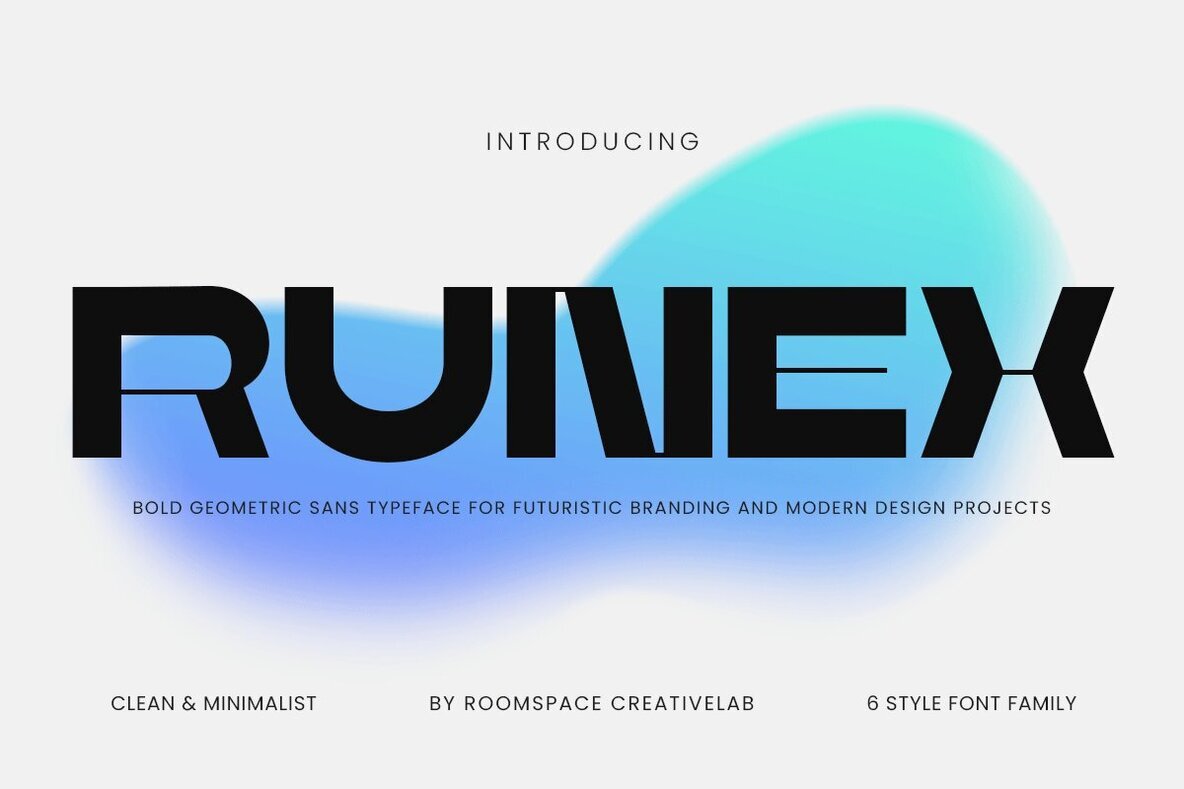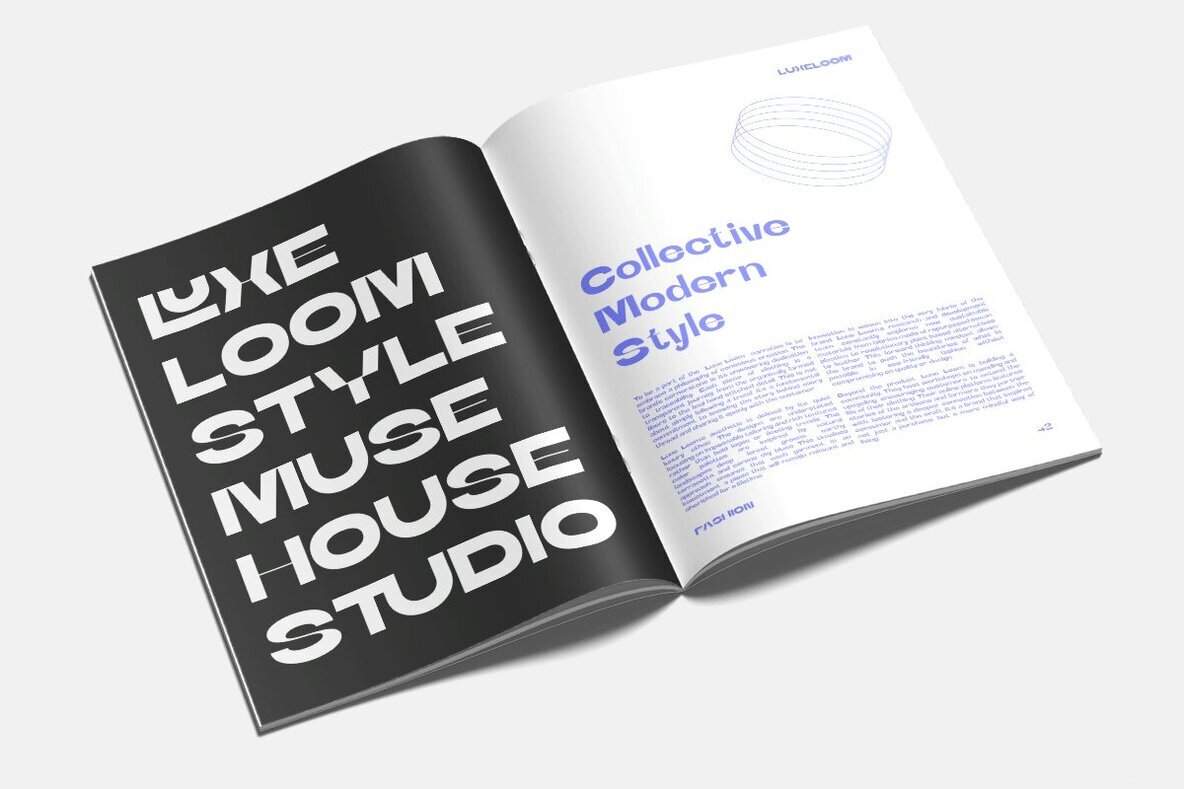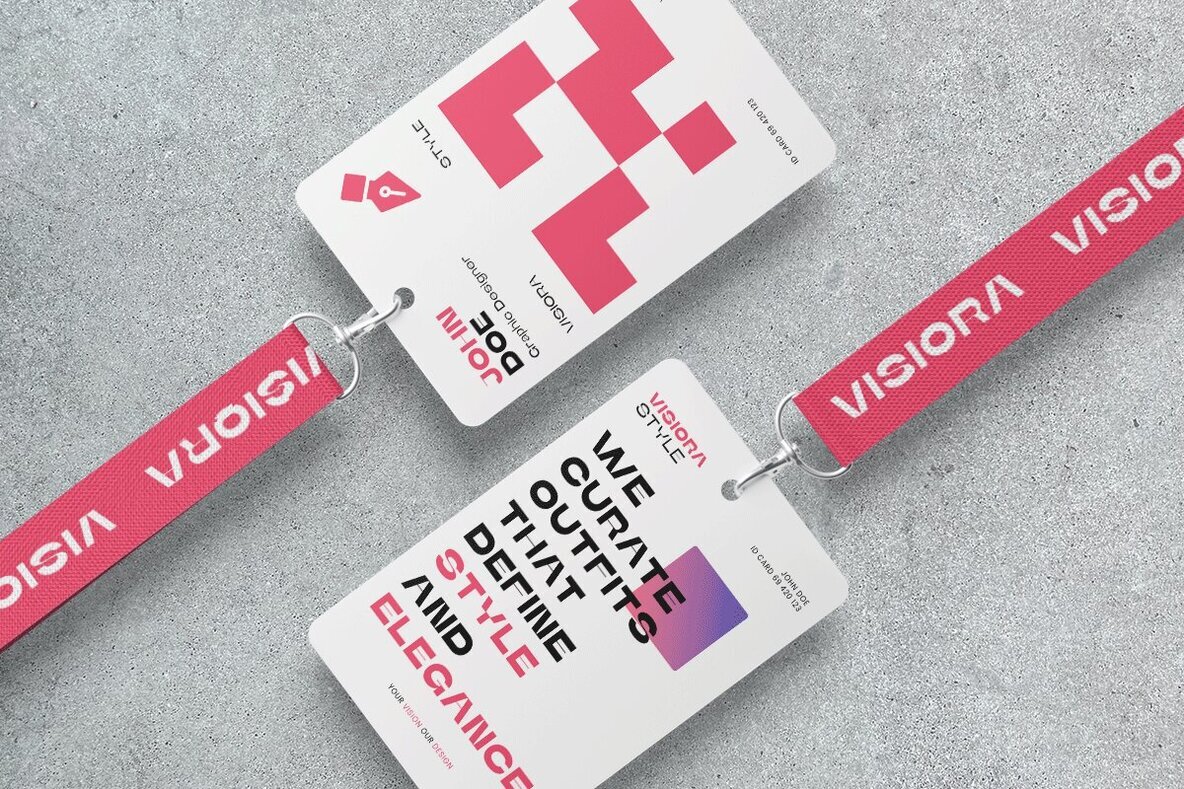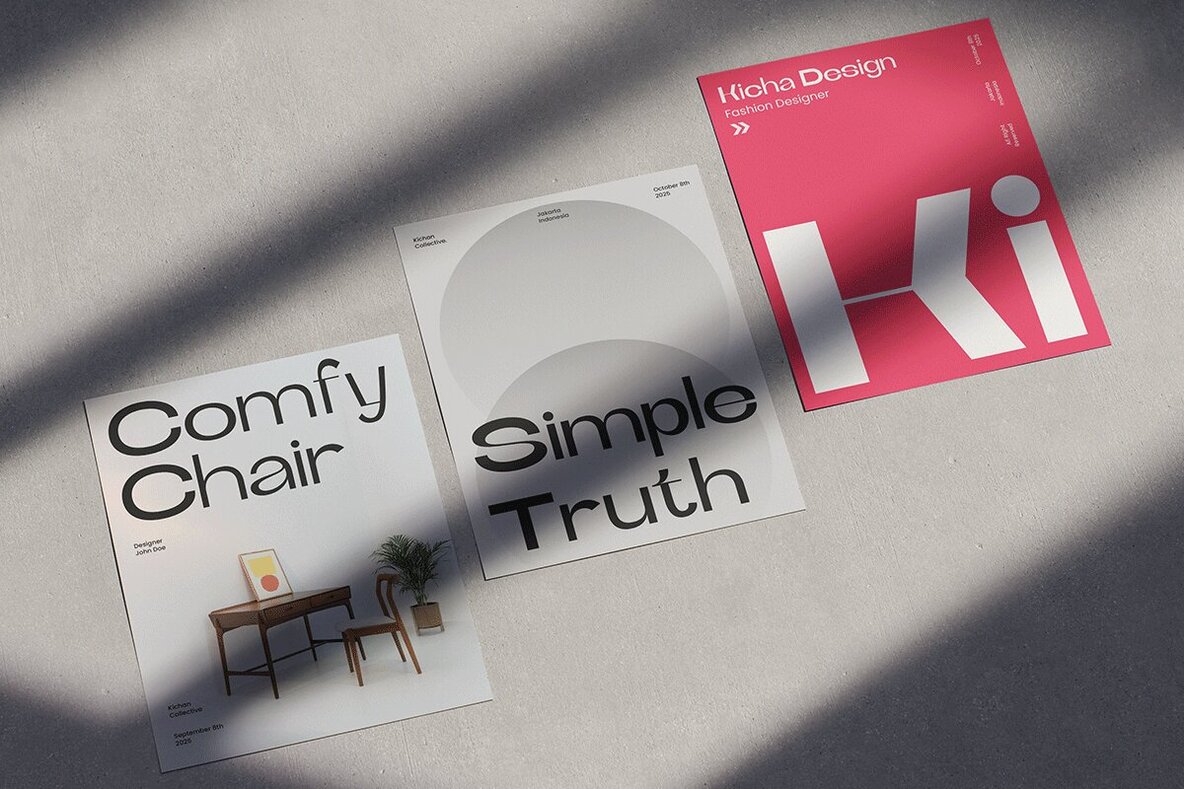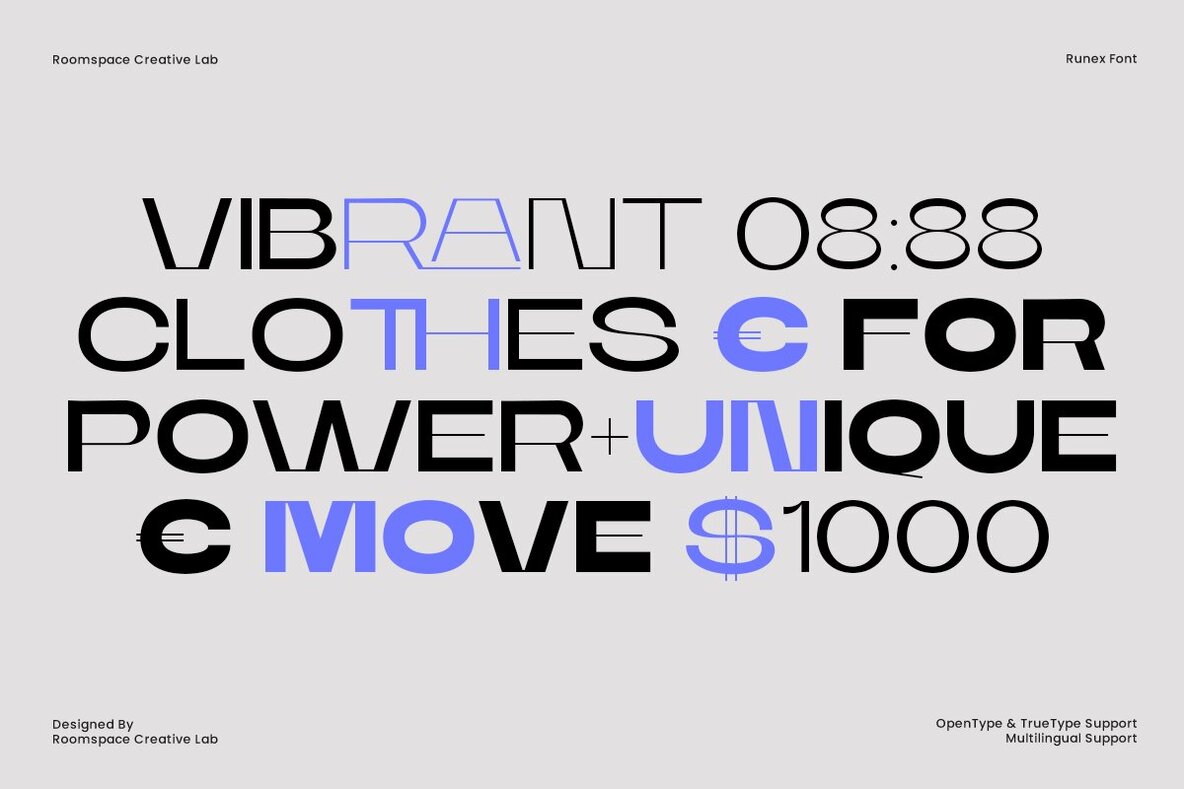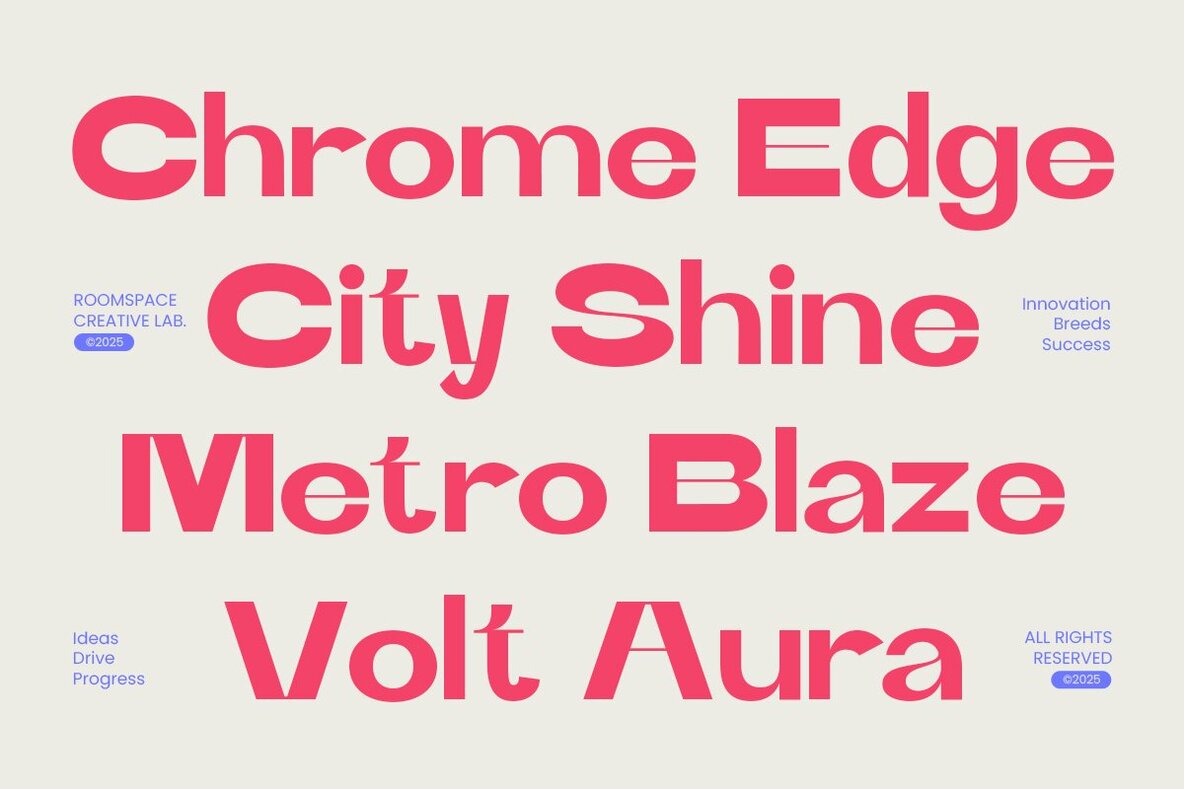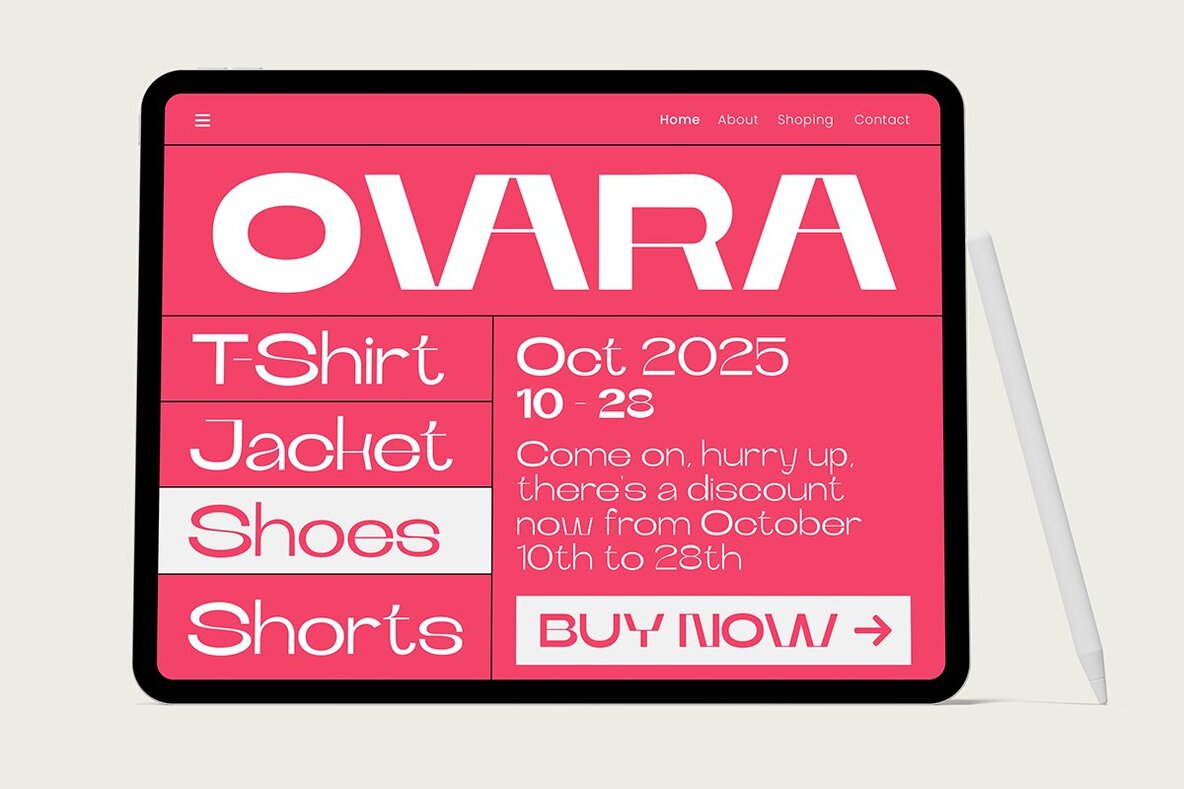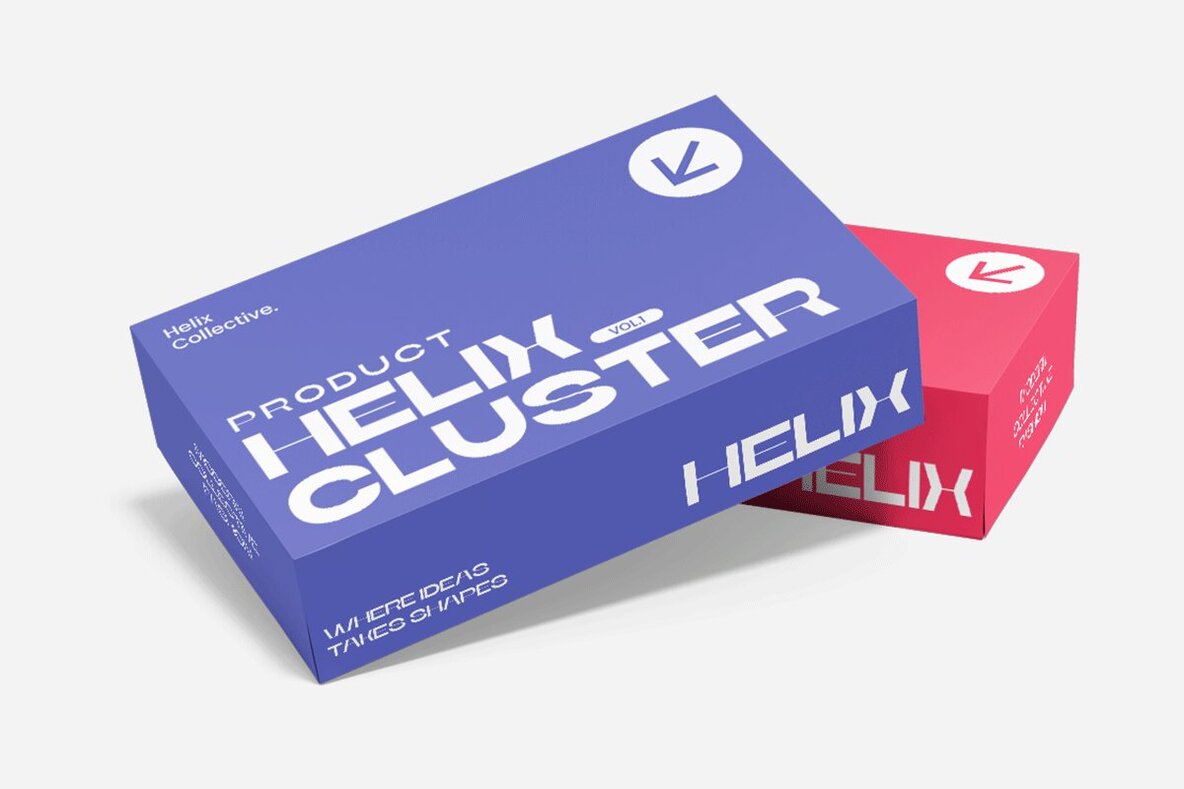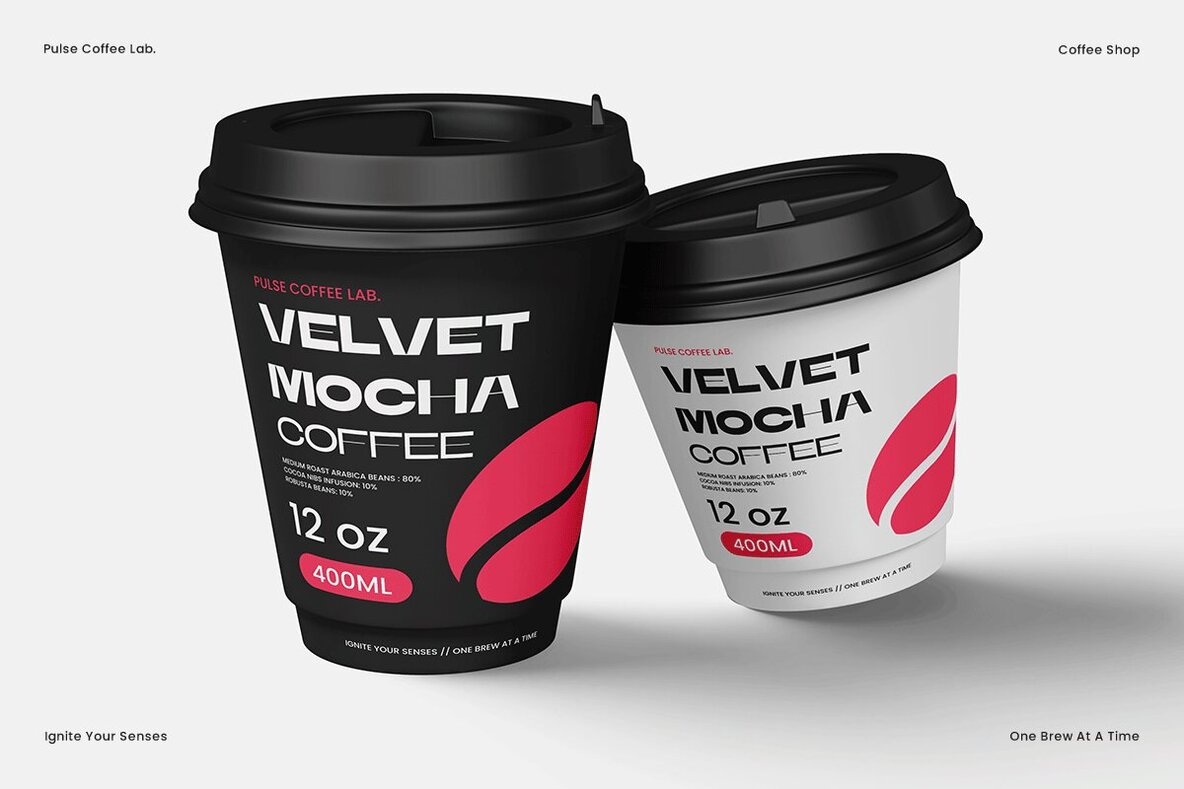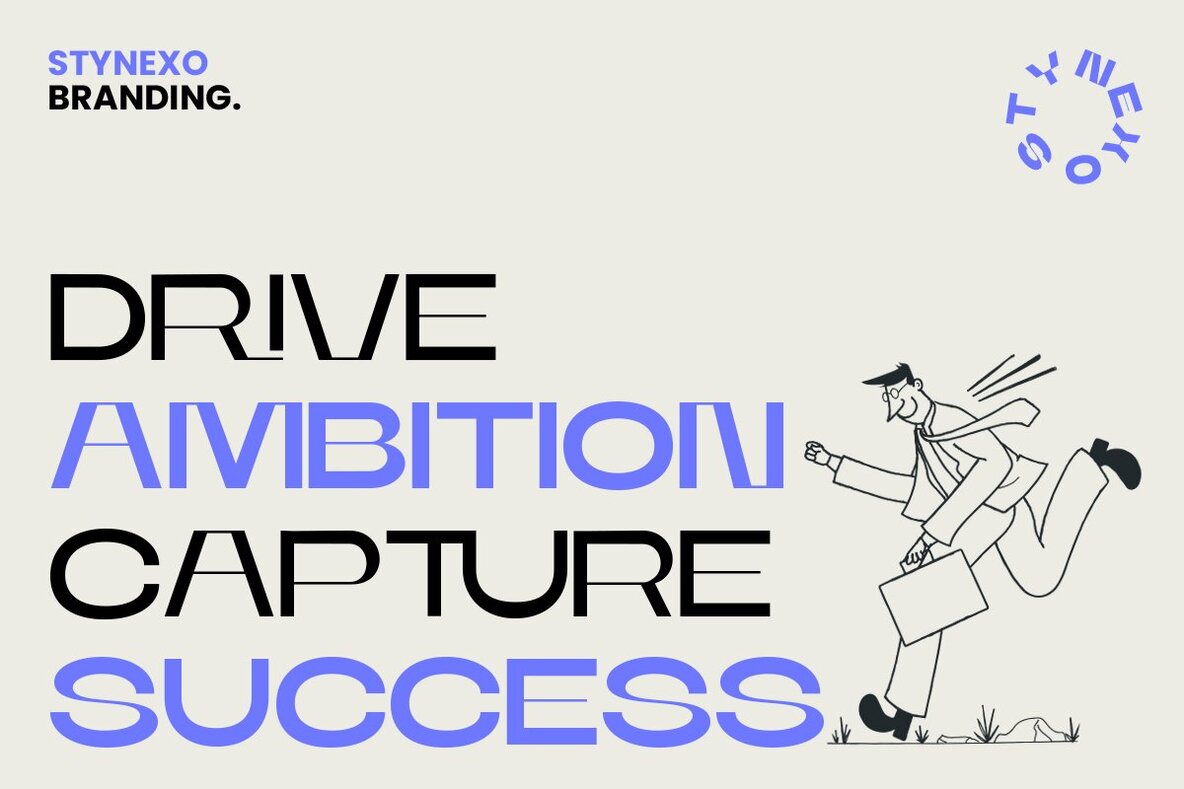
Runex Font
Runex is a bold sans serif font defined by strong lines and geometric clarity. Its structured, modern style delivers a clean aesthetic for projects that demand both professionalism and creativity. Each character is designed for balanced readability, ensuring sharp presence in headlines and consistent clarity in body text. This typeface adapts seamlessly to branding, editorial layouts, and digital platforms. Bold letterforms maintain high visibility even at smaller sizes, while optimized spacing and kerning sustain cohesion across media. Runex supports multiple weights and offers a complete set of uppercase, lowercase, numbers, punctuation, and multilingual characters for versatile application.Modern Bold Sans Serif for Confident Design